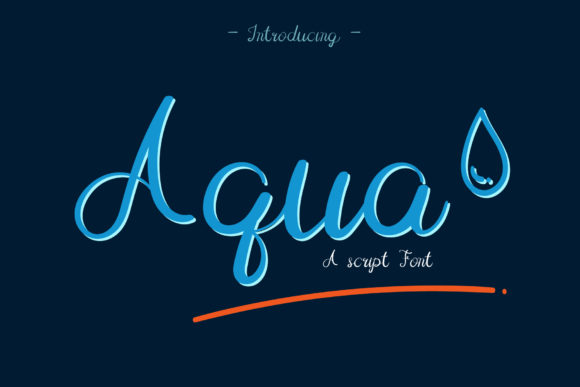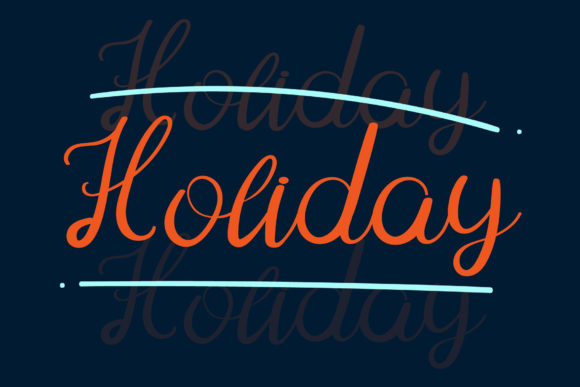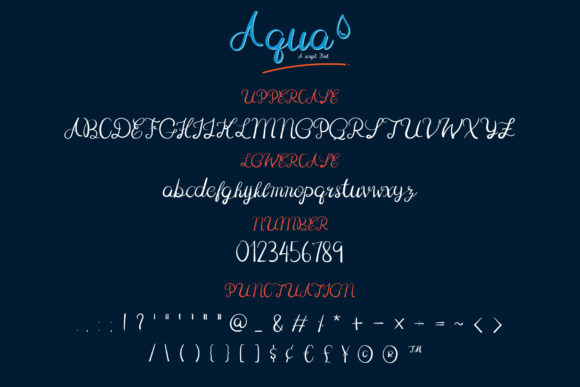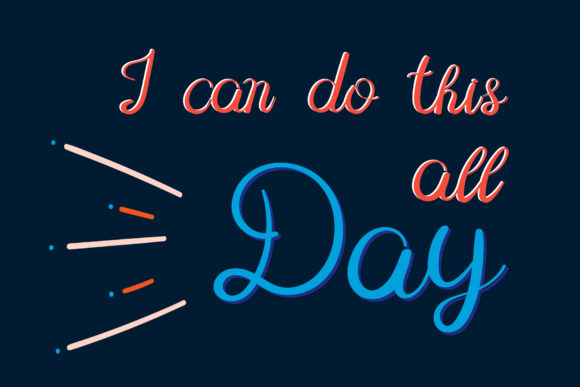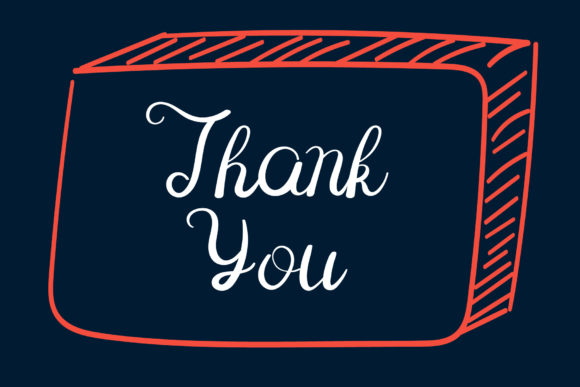
Aqua Font
About Aqua Font
Aqua is a delicate, round lettered handwritten font. Fall in love with its incredibly distinct and timeless style and use it to create spectacular designs!